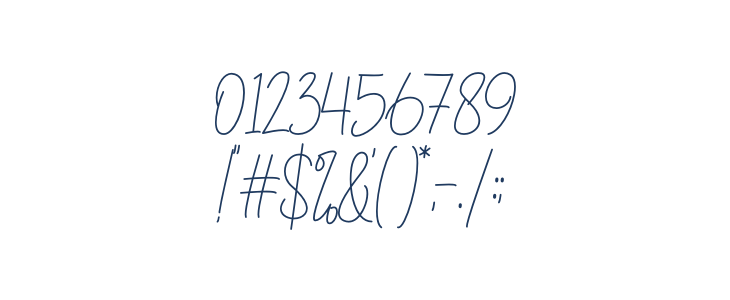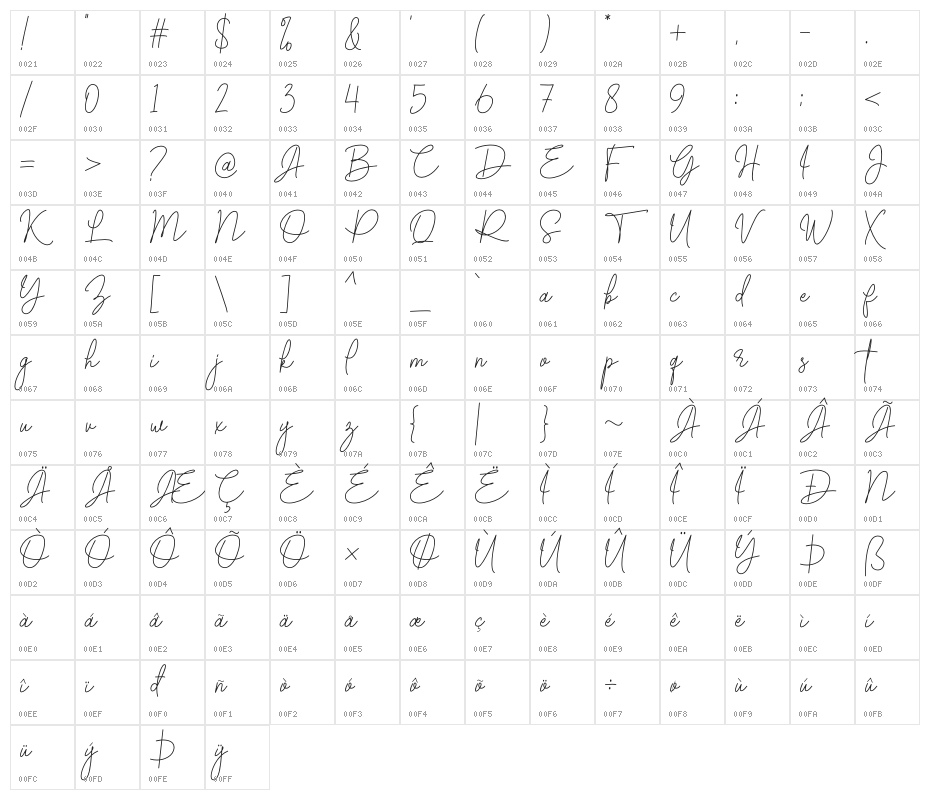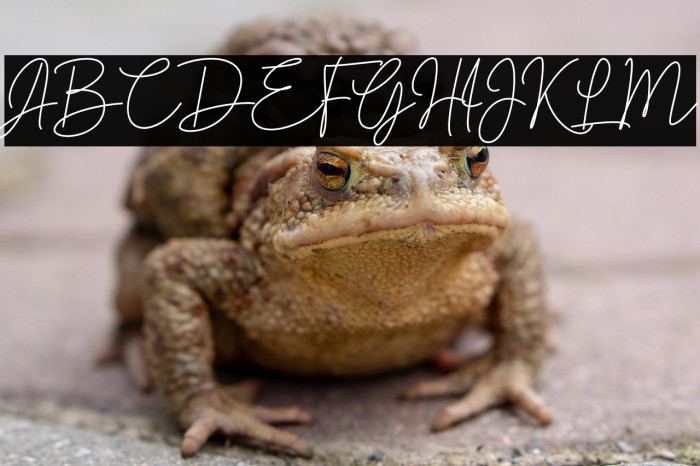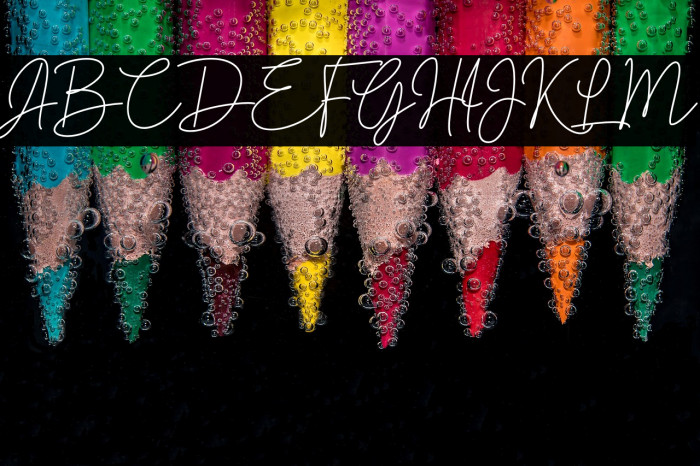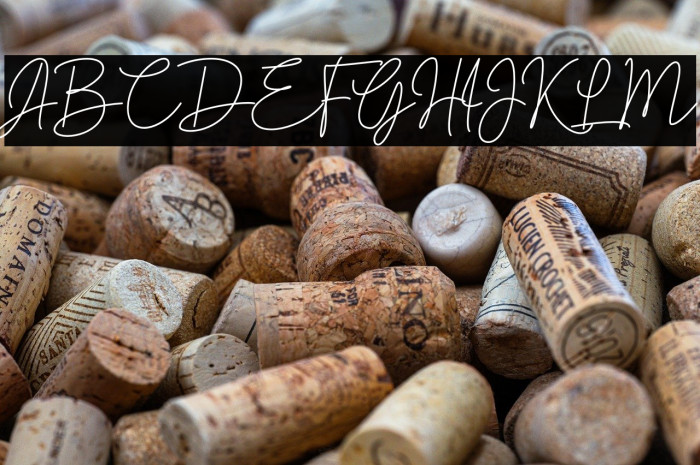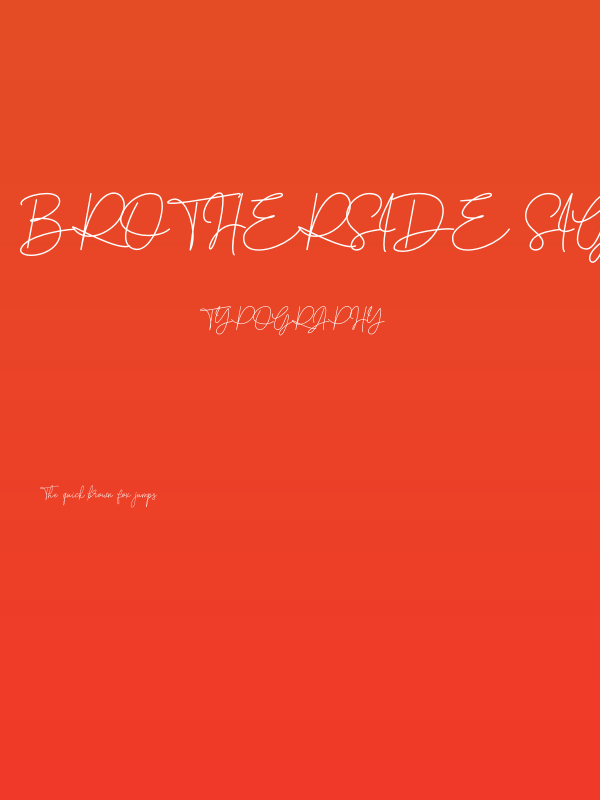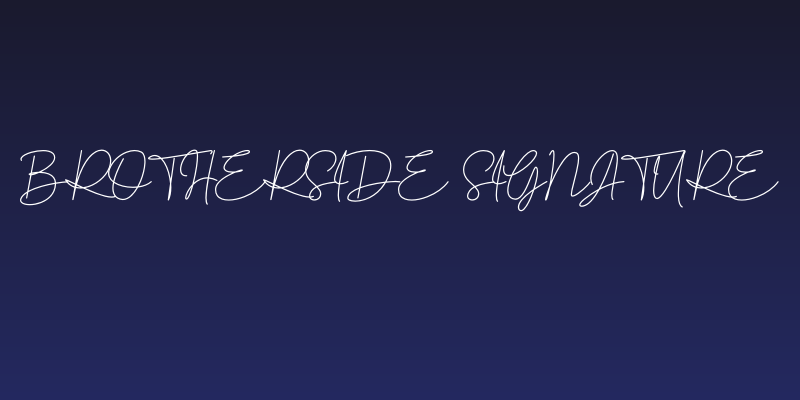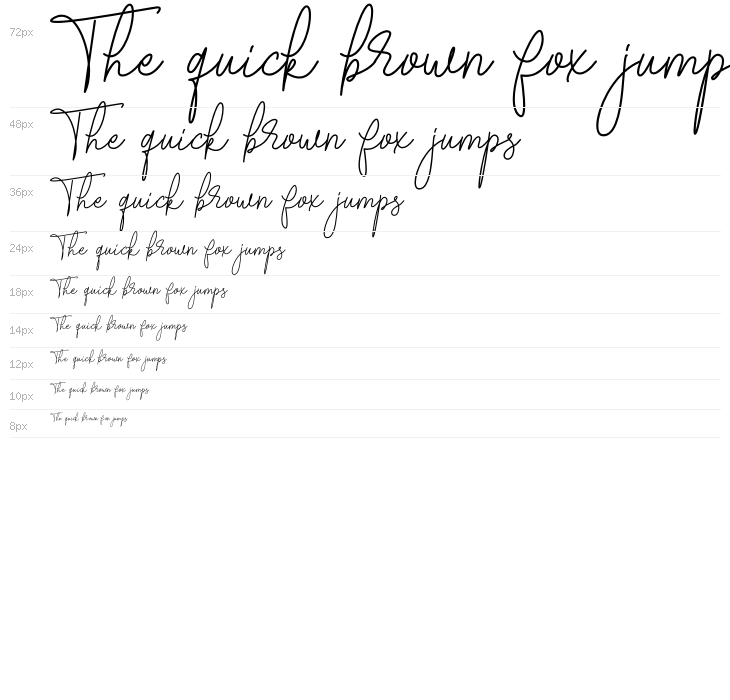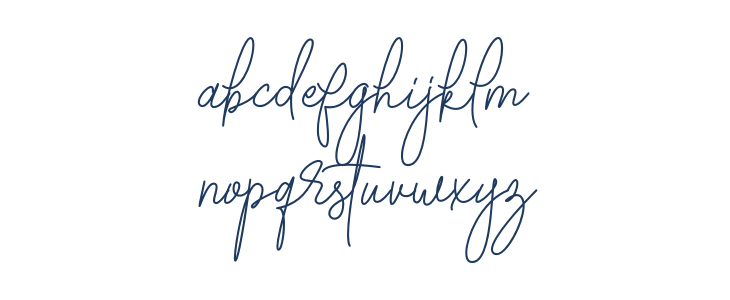
Brotherside Signature Font
Brotherside Signature Description
This elegant script font exudes a sense of sophistication and fluidity, characterized by its flowing, cursive strokes that mimic the natural motion of handwriting. The uppercase letters are gracefully elongated, with sweeping curves and loops that lend an air of refinement. The lowercase letters maintain a consistent style, featuring smooth, connected strokes that enhance readability while preserving the font's artistic flair. The numerals and special characters are crafted with the same attention to detail, ensuring a cohesive appearance across all elements. This font's delicate lines and balanced proportions make it ideal for projects that require a touch of elegance and personal expression.
| Overall Style | Elegant, Handwritten |
| Use Case | Logos, Invitations, Personal Branding |
| Proposed Projects | Ideal for wedding invitations, personal branding, elegant logos, and stationery design. |